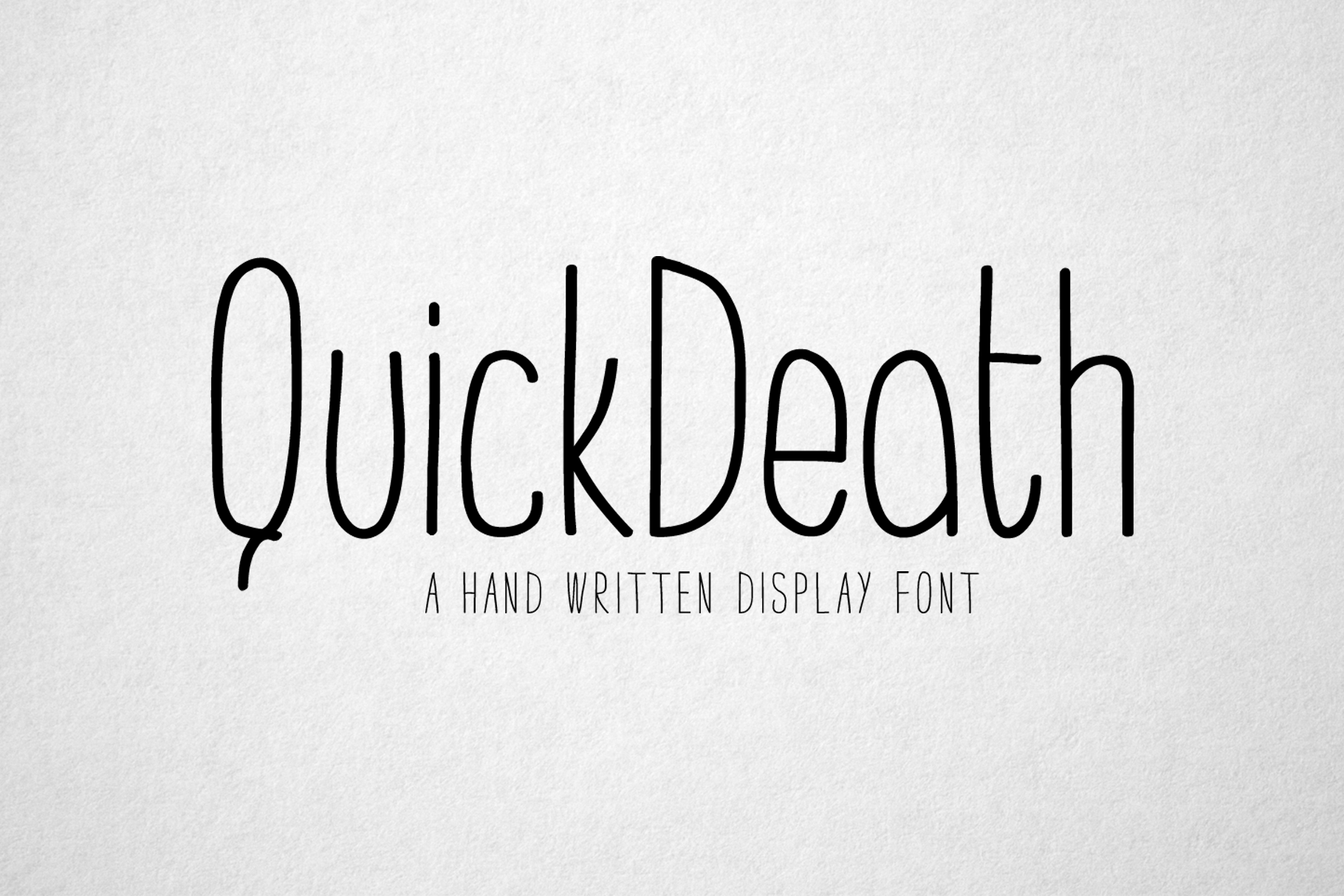
QuickDeath - Hand Drawn Font
Introducing QuickDeath by We are colt
QuickDeath is an entirely hand-drawn font, designed with the intention of being a versatile sans serif display font. It can add an eerie undertone or be pretty cutesy. Quirky irregularities are what really make this font stand out.
Available in two weights I find this font really handy to have around. It's folk, easy to use and it gives your work an illustrative handmade feel.
QuickDeath pairs well with Helvetica.
- Two weights
- Upper and lowercase